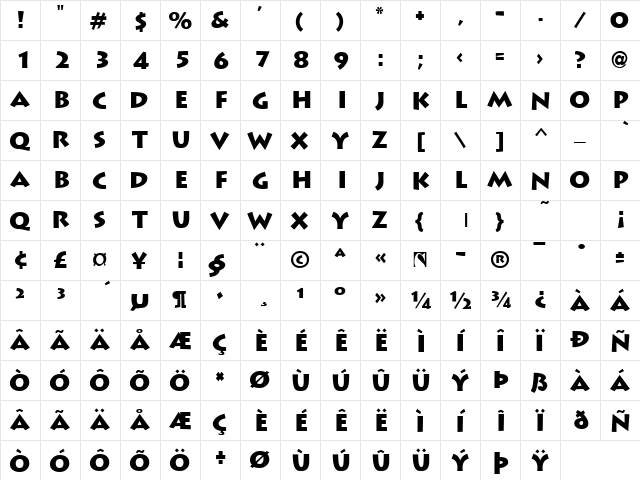
Lithographer normal
Design Context for Lithographer Typeface
Lithographer is a composed and adaptable typeface that performs quietly and consistently across a wide range of design contexts.